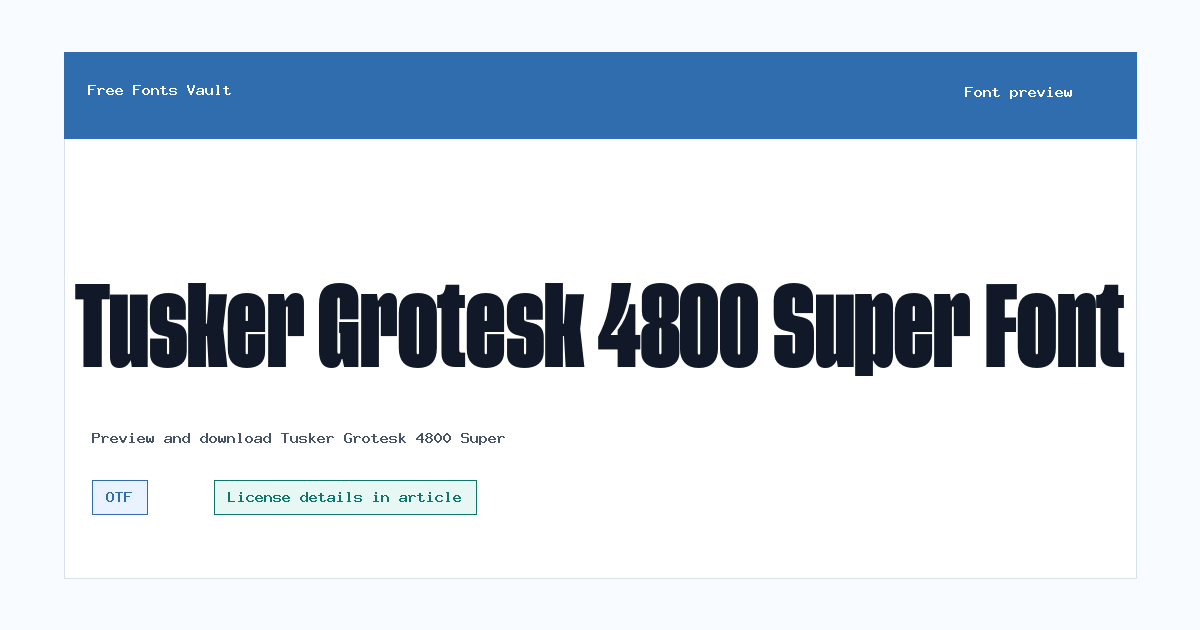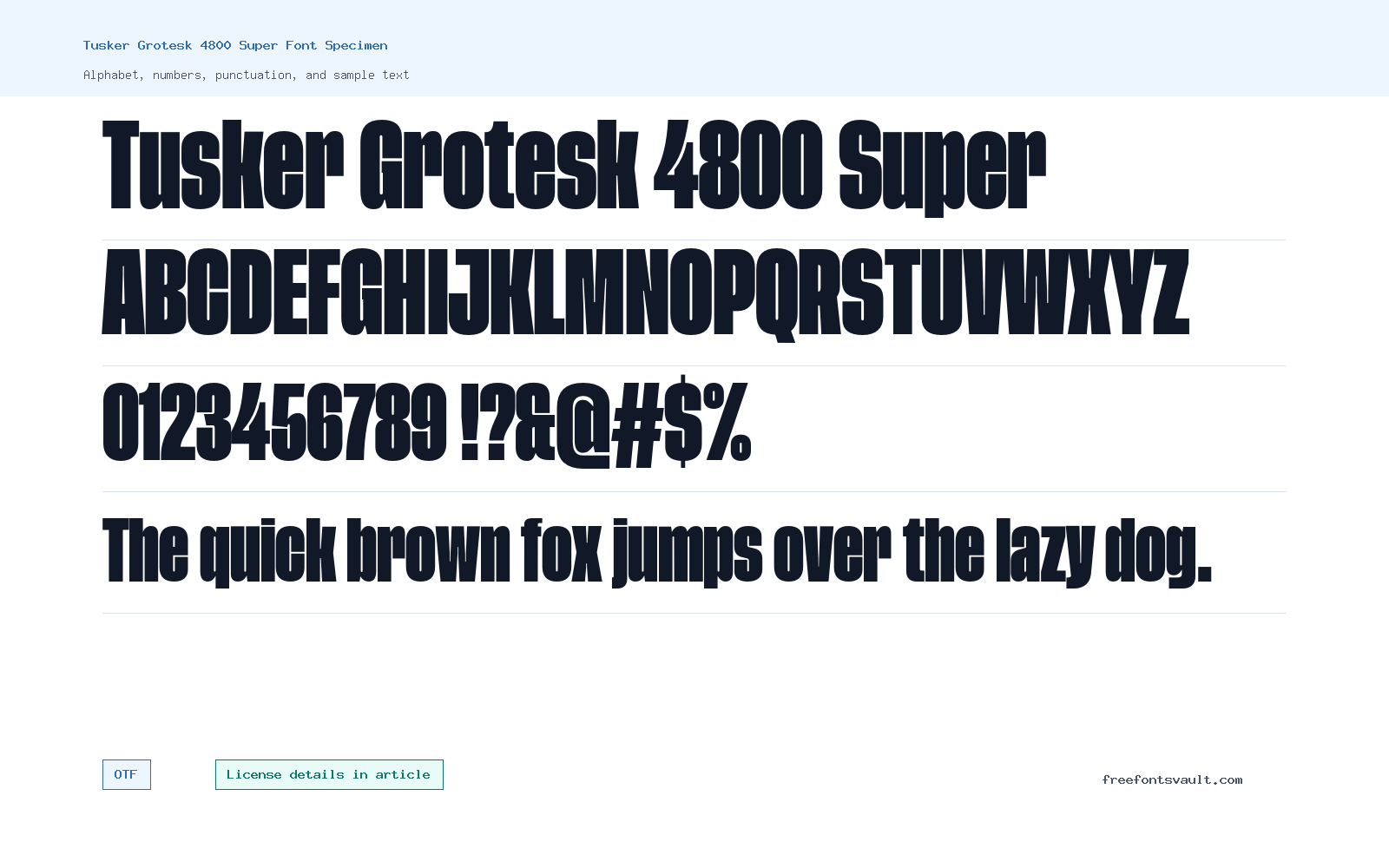
Tusker Grotesk 4800 Super
- Designer Lewis McGuffie
- Foundry Lewis McGuffie
Tusker Grotesk 4800 Super font.
Tusker Grotesk 4800 Super is a heavy display style from the Tusker Grotesk family, made for short, forceful typography rather than quiet reading text.
About Tusker Grotesk 4800 Super
Tusker Grotesk is a headline-focused grotesk family by Lewis McGuffie. The 4800 Super style sits in the Super weight range, so it is best treated as a strong display face for titles, posters, covers, banners, and graphic layouts where the words need to carry visual weight. Its family background points toward condensed grotesque and gothic sans influences, with a high x-height and compact headline energy.
Use Tusker Grotesk 4800 Super with short wording first: one-line headlines, bold labels, section openers, social graphics, event names, or packaging-style type. In the preview box, test uppercase and mixed-case settings, then check spacing at the exact size you plan to use. Heavy display fonts can lose clarity when used for long paragraphs, small captions, or dense UI text, so pair it with a calmer sans serif for body copy.
- Heavy Super style suited to headline and display typography
- Part of the Tusker Grotesk family by Lewis McGuffie
- Works best for short text where strong shape and tight spacing matter
- Poster headlines and event graphics
- Editorial titles, magazine-style openers, and cover lines
- Logo drafts, wordmarks, and bold brand mockups
- Social media images, banners, and large display text
Tusker Grotesk is credited to Lewis McGuffie, with Lewis McGuffie also listed as the foundry name in the font post details.
Start with larger sizes and short phrases. Tighten or loosen tracking only after previewing the actual words, because heavy grotesque styles can look crowded when letters with closed shapes sit together. For readable layouts, use Tusker Grotesk 4800 Super for the main visual line and choose a simpler companion font for paragraphs, menus, or fine print.
Is Tusker Grotesk 4800 Super good for body text?
It is better for headlines and short display text. For paragraphs, use a more neutral text font and keep Tusker Grotesk 4800 Super for titles or emphasis.
Can I use Tusker Grotesk 4800 Super in a logo?
Who designed Tusker Grotesk?
Tusker Grotesk is credited to Lewis McGuffie.